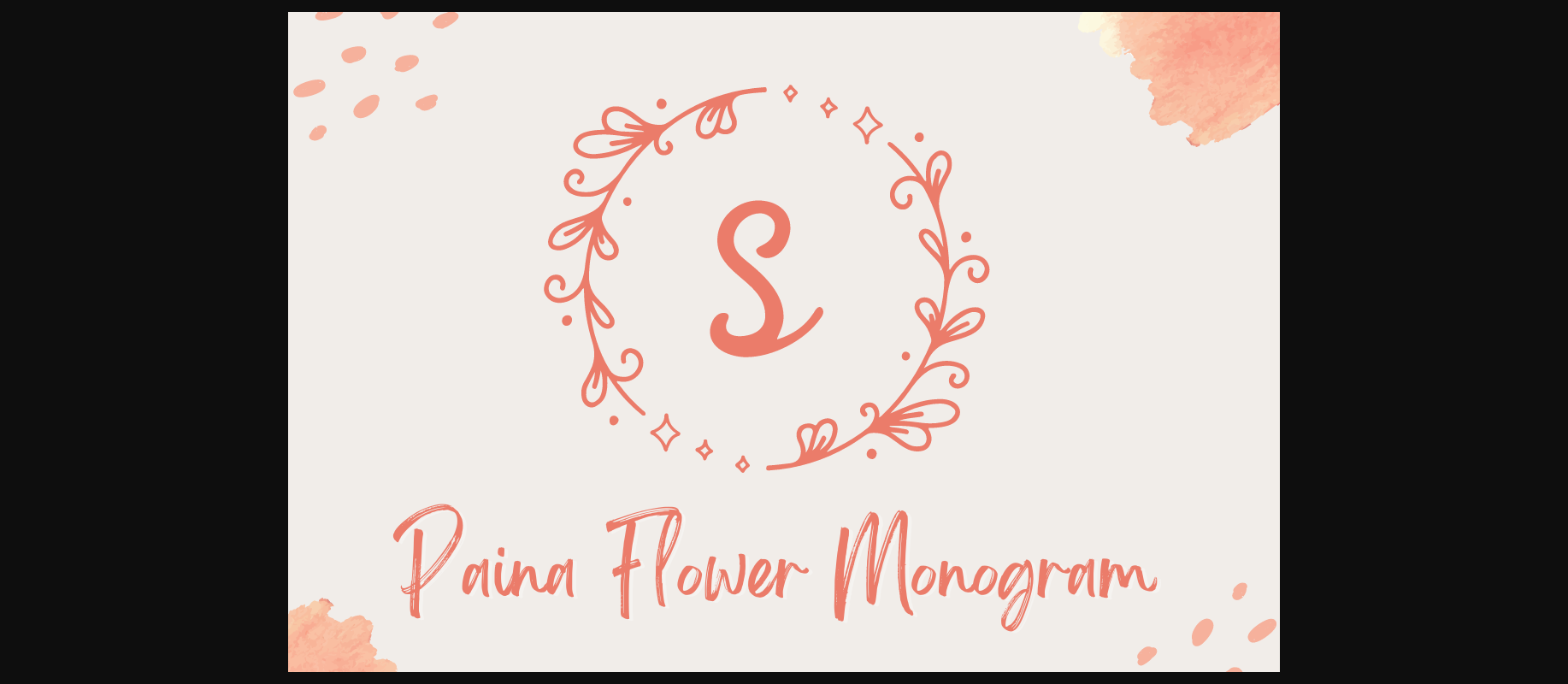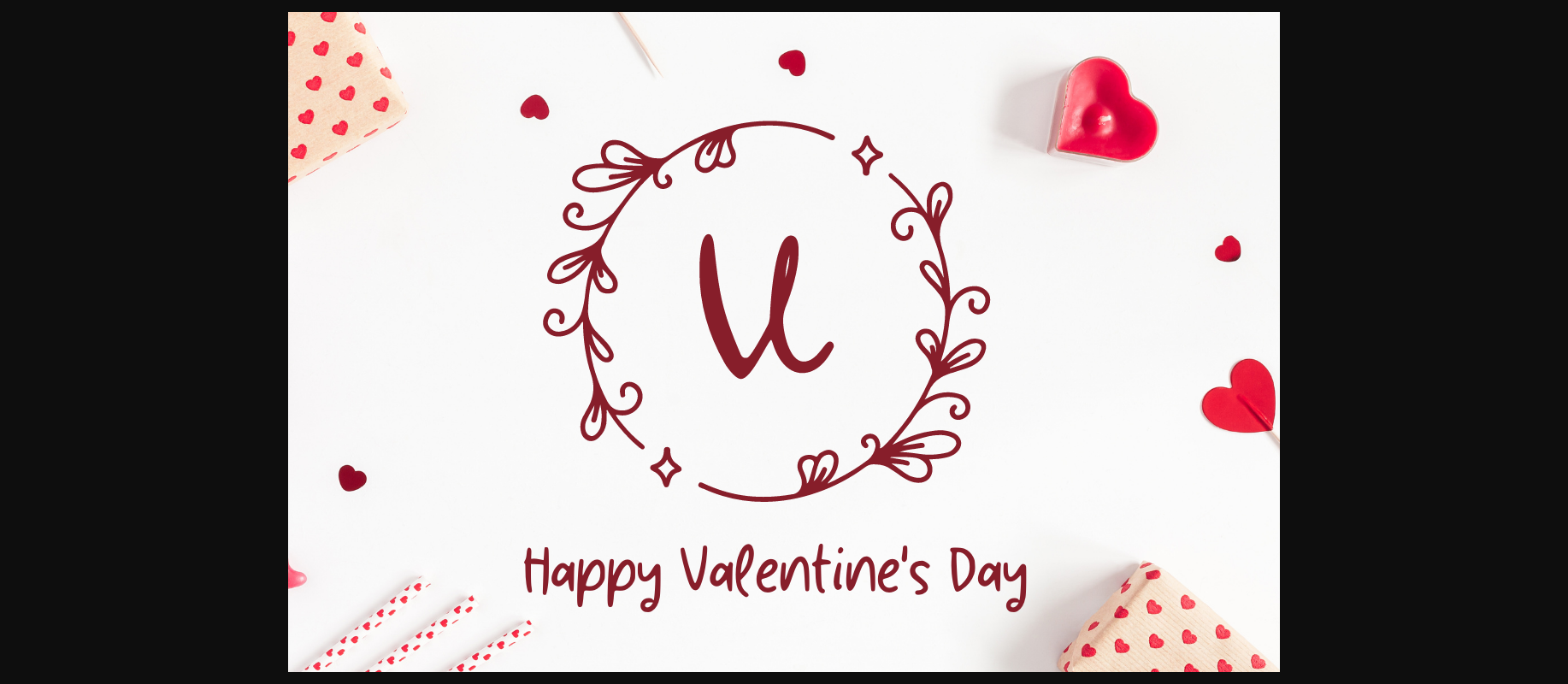
About Paina Flower Monogram Font
Paina Flower Monogram is a beautiful flower decorative font. With its elegant decorations, this font is perfect for your special occasions, business designs, logos, branding, social media posts, wedding invitations, monogrammed gifts, and more!